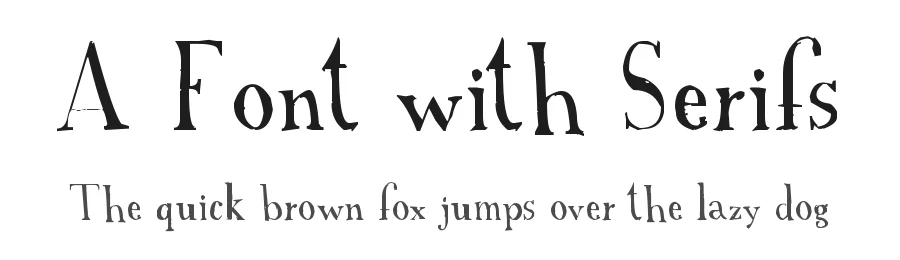
About Megistica Dreams Font
Megistica Dreams Specifications
| Font Family | Megistica Dreams |
| Full Name | Megistica Dreams Italic |
| Glyph Count | 244 glyphs |
| PostScript Name | MegisticaDreams-Italic |
Megistica Dreams ships with 1 OpenType feature you can switch on in apps that support them (Illustrator, InDesign, Affinity, Figma, CSS font-feature-settings).
Megistica Dreams supports 222 languages.
Megistica Dreams Font is a decorative font that shines as a display or heading face. Pair it with a clean sans-serif or serif font for body text β the contrast creates a clear hierarchy while the two styles stay balanced and easy to read.